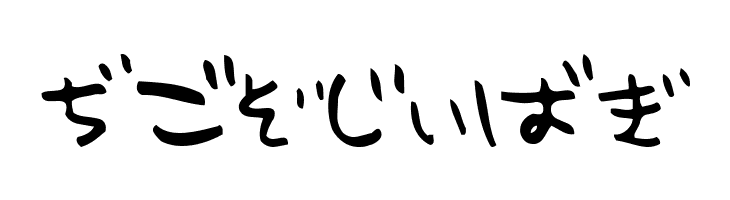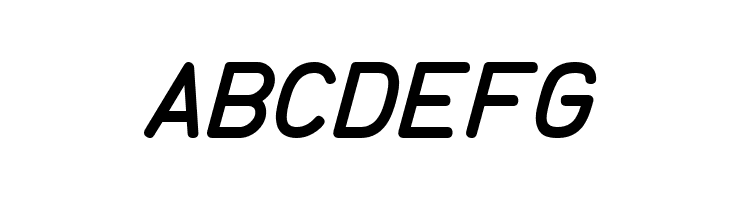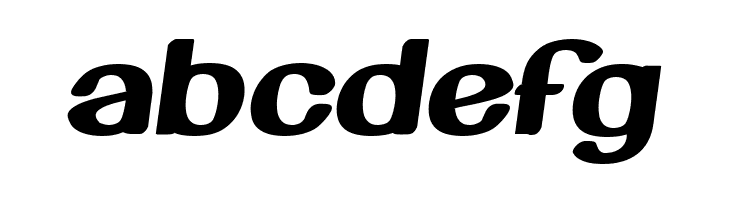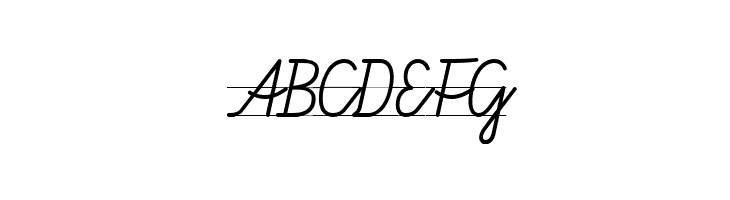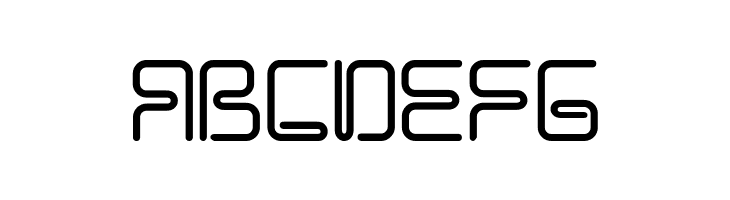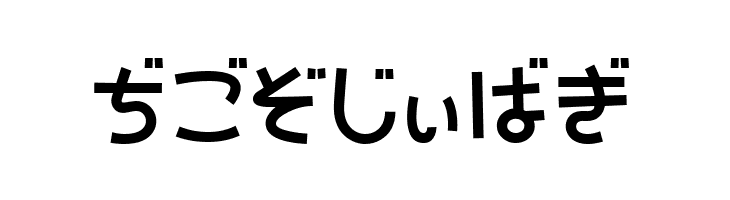
A playful, casual handwritten font with smooth curves and a friendly appearance.
A modern, italicized sans-serif font with smooth curves and consistent stroke width.
A bold, dynamic font with rounded, smooth curves and a slight slant.
A classic cursive font with smooth, flowing connections and elegant style.
A modern, tubular font with smooth curves and a futuristic design.
A clean, modern font with smooth curves and balanced structure.